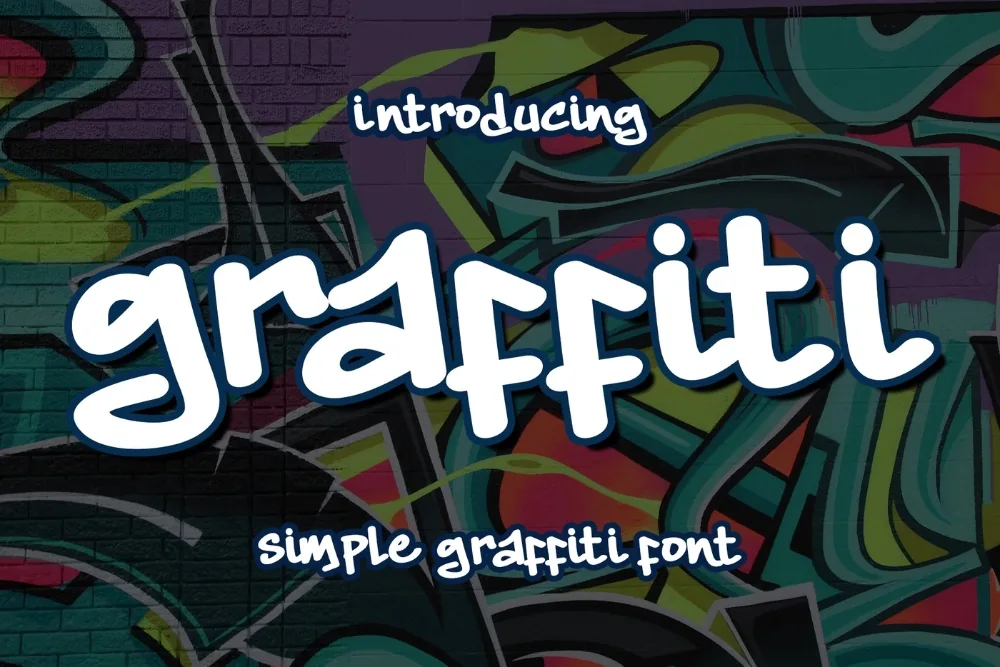
Vintage Subway Tag Font
If you have been hunting for a vintage graffiti font that does not look like every other download on the internet, this one earns its place. The rounded, marker-drawn look of early eighties train writing. Warmer and friendlier than modern angular styles.
Round terminals and gently swelling stems suggest a broad felt tip rather than a spray can. Small inconsistencies between repeated letters keep long words from looking copy-pasted.
Suits retro playlist covers, throwback apparel, hip hop event art, and anything aiming at a pre-digital feel.
One practical note: set a test word at the size it will actually be printed before you commit to it, because street lettering behaves very differently at poster scale and on a label.